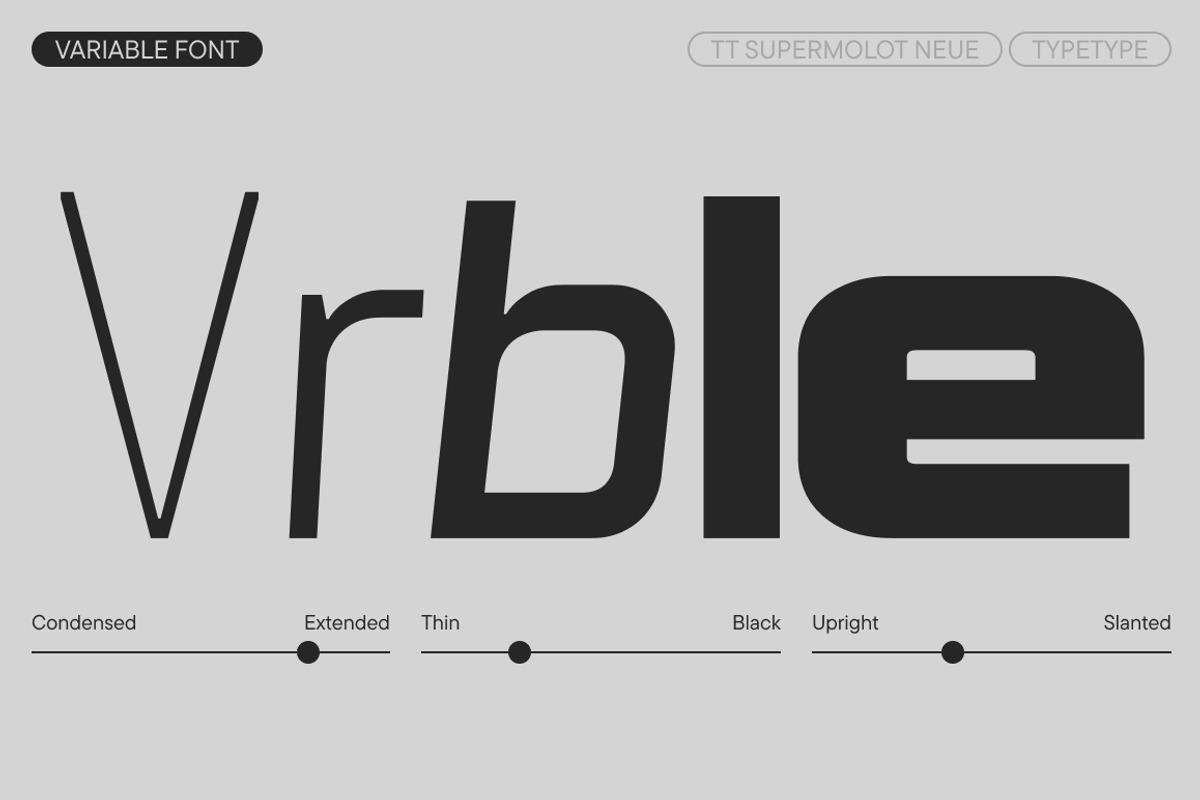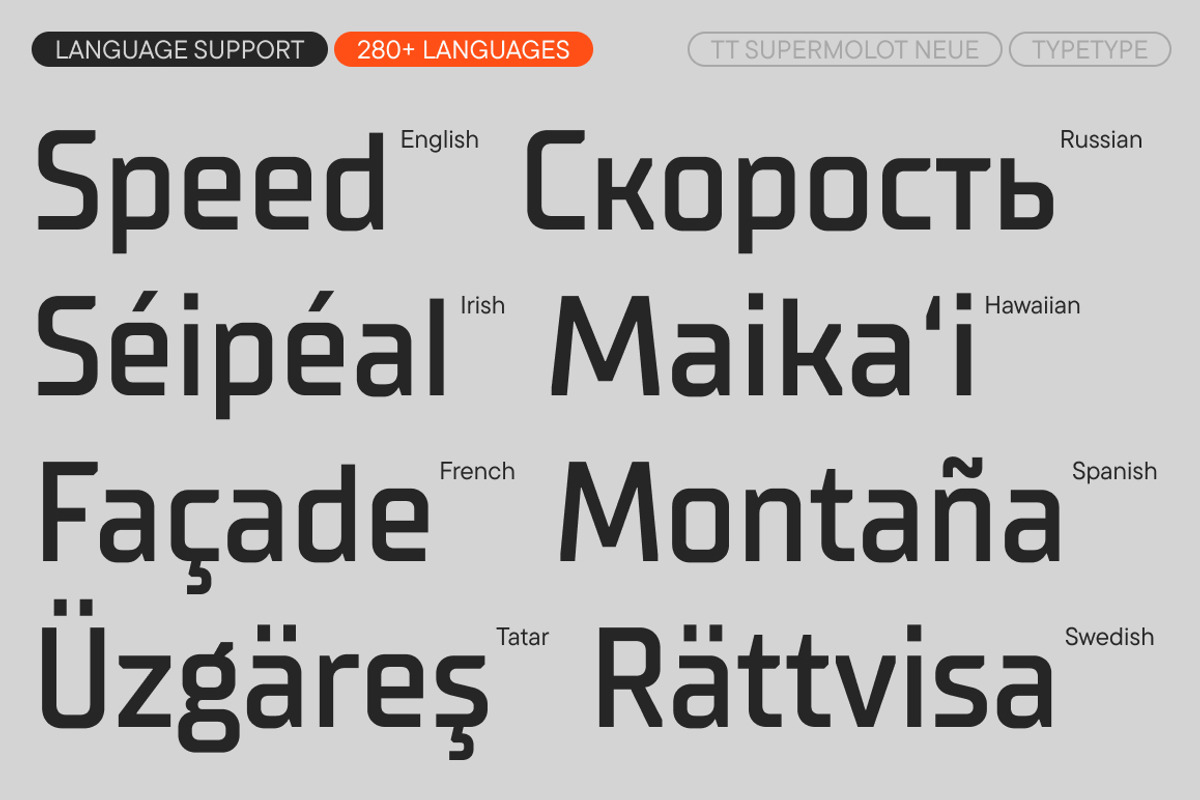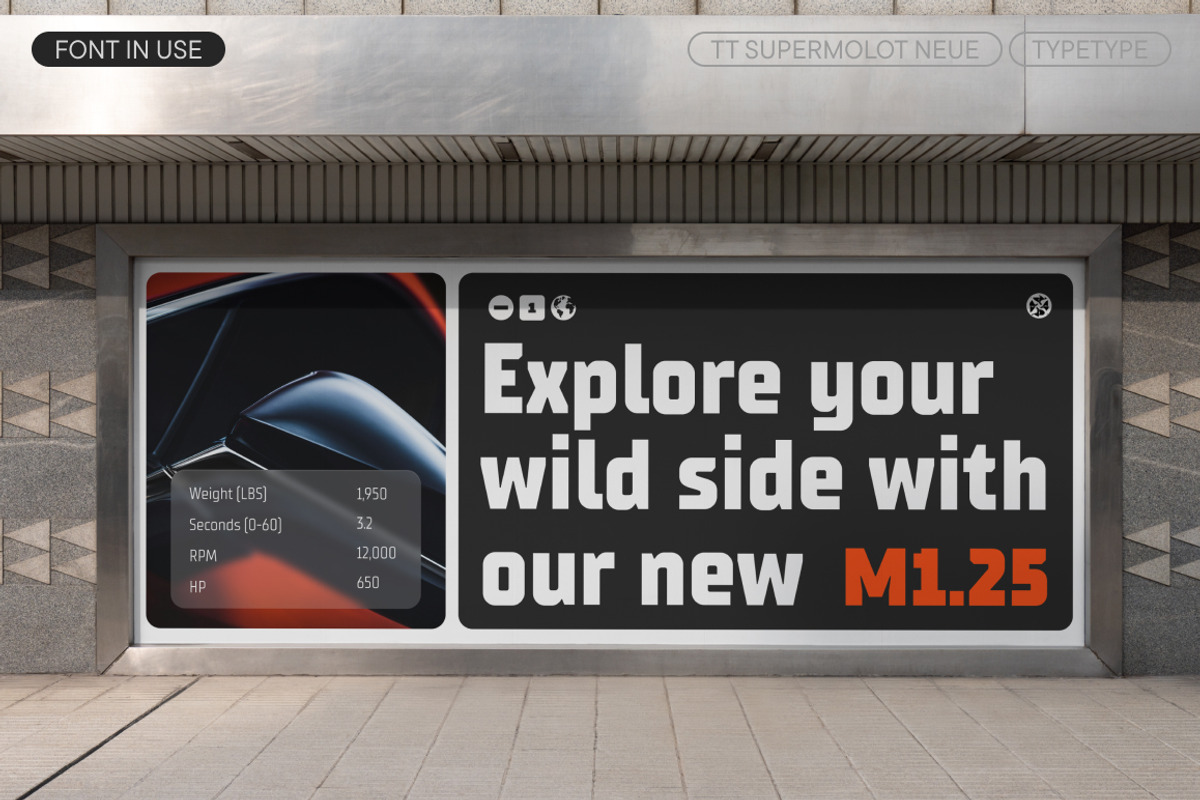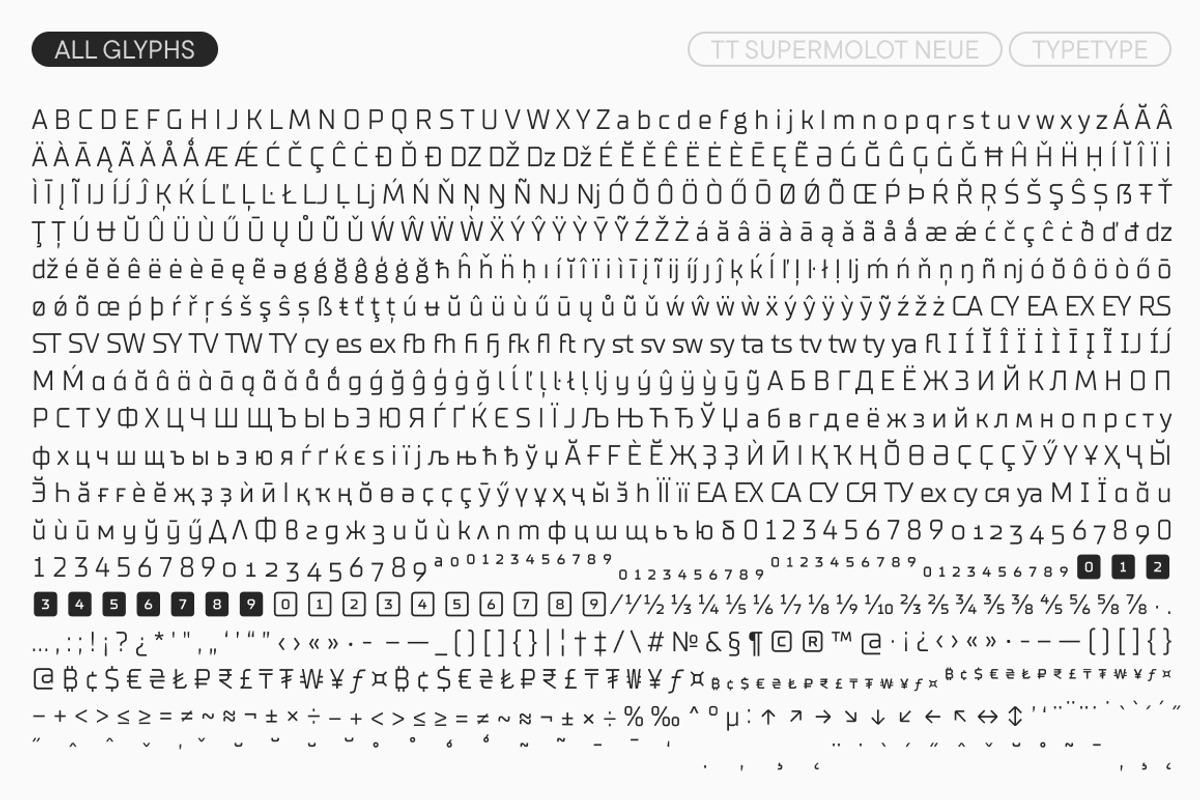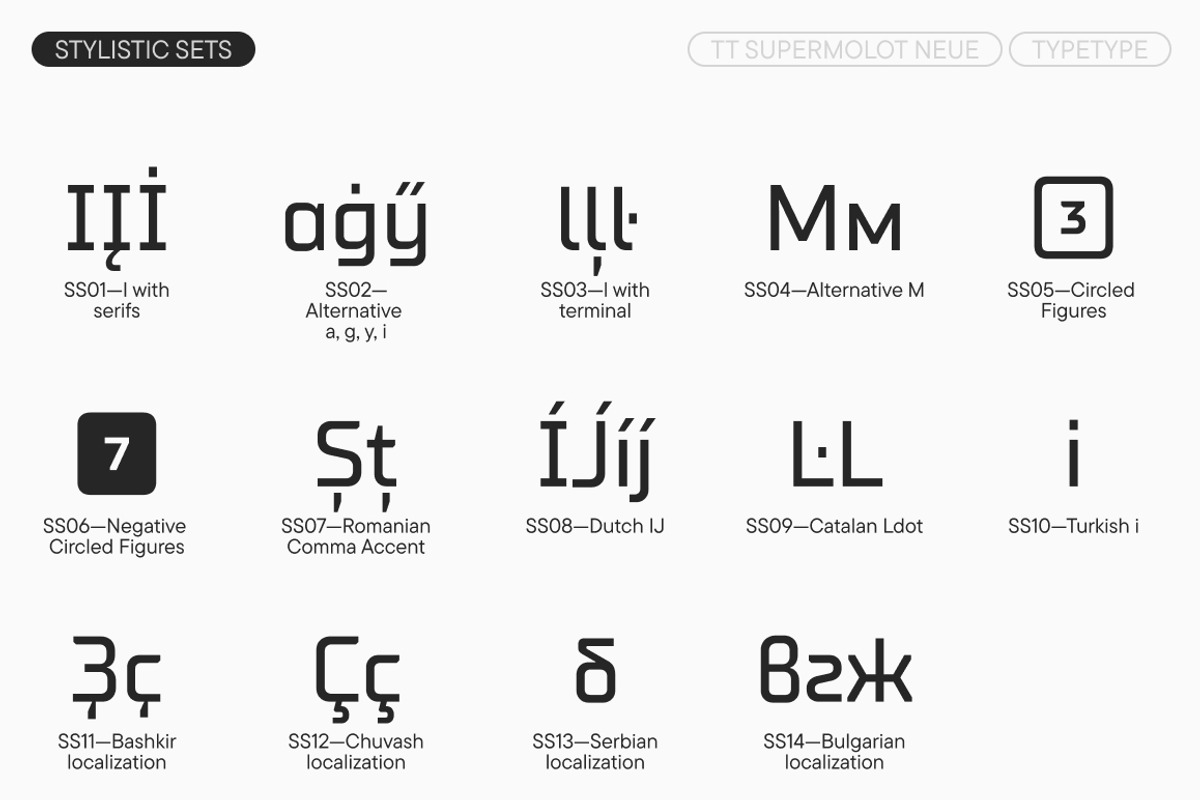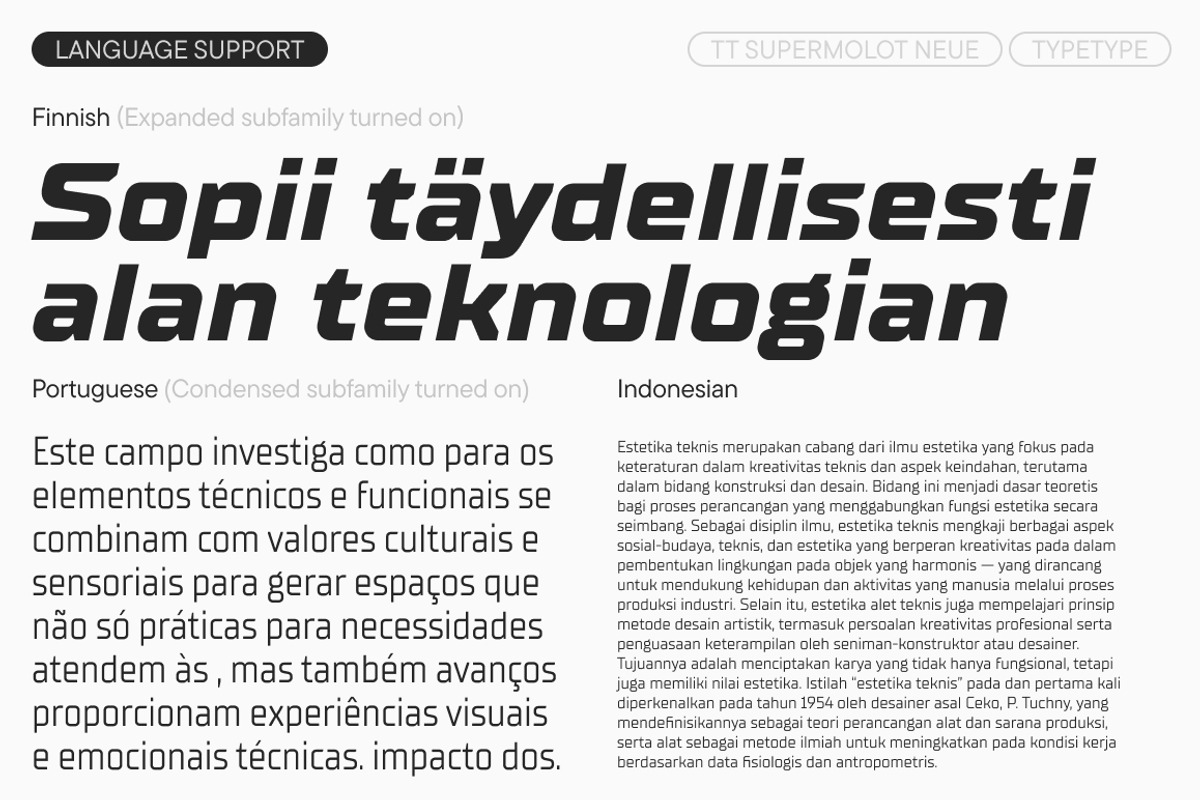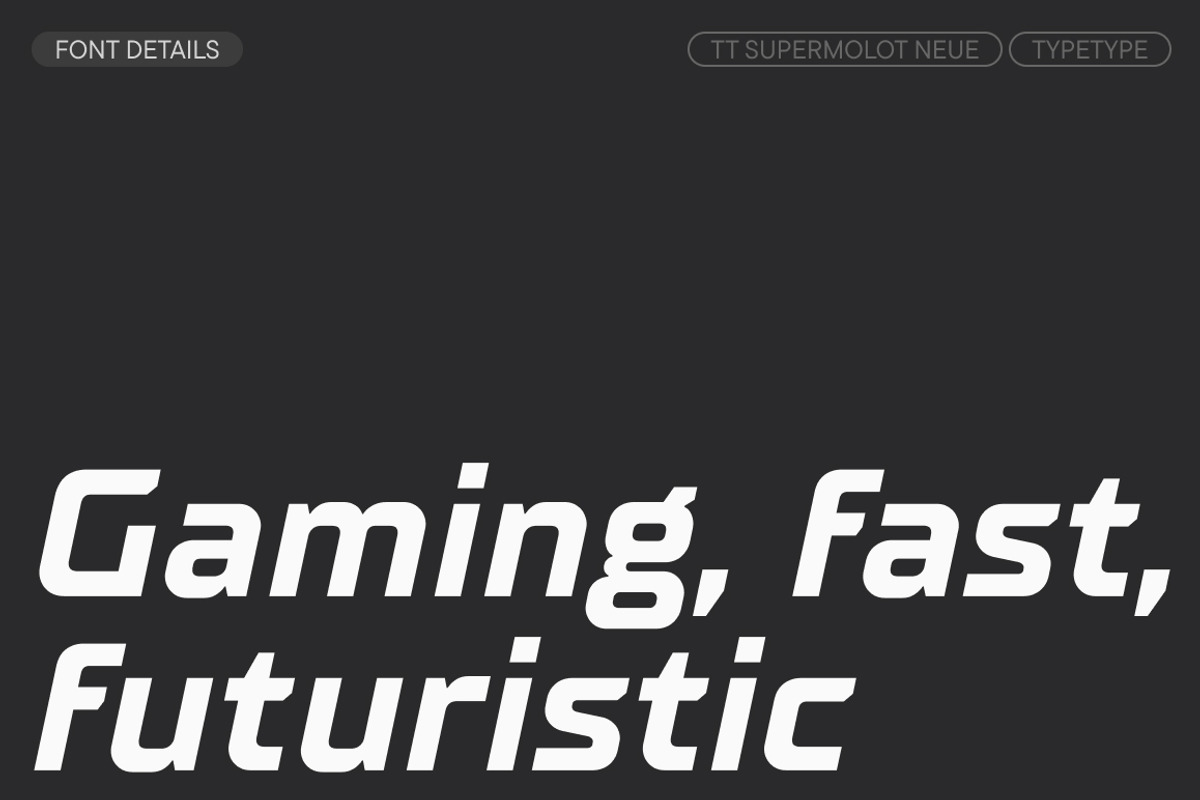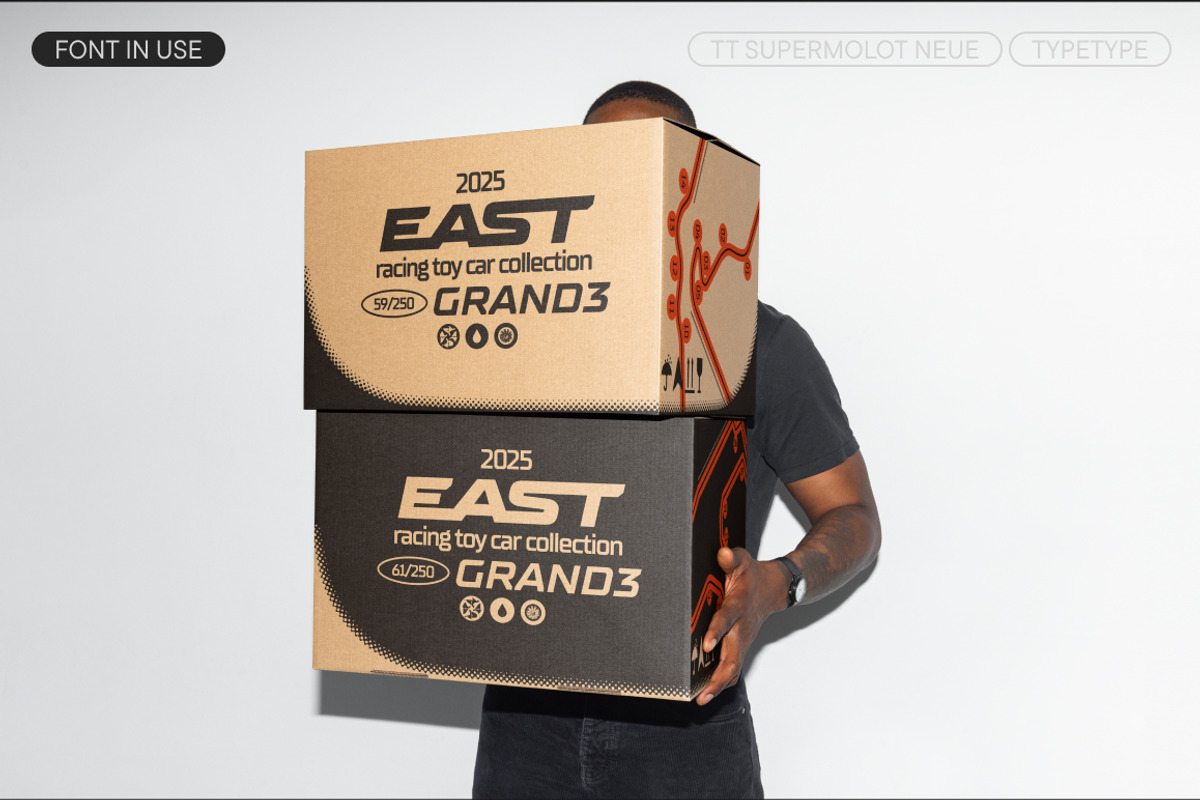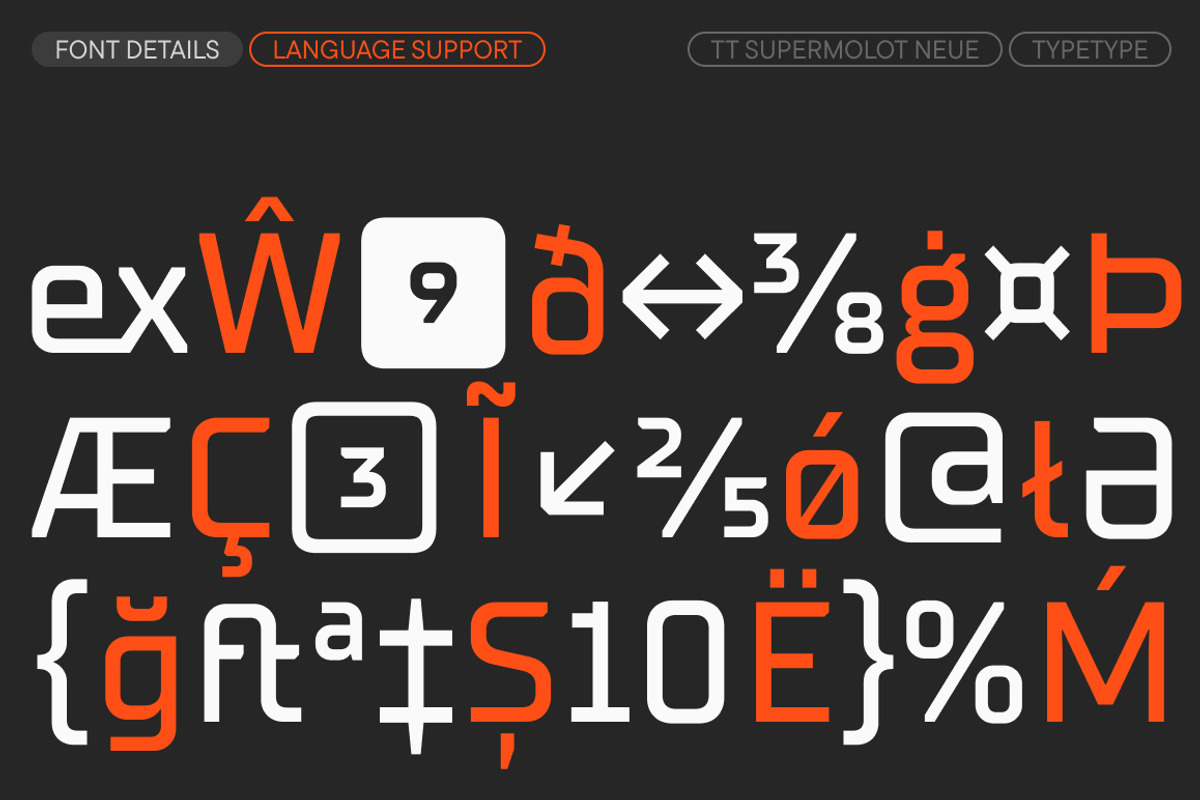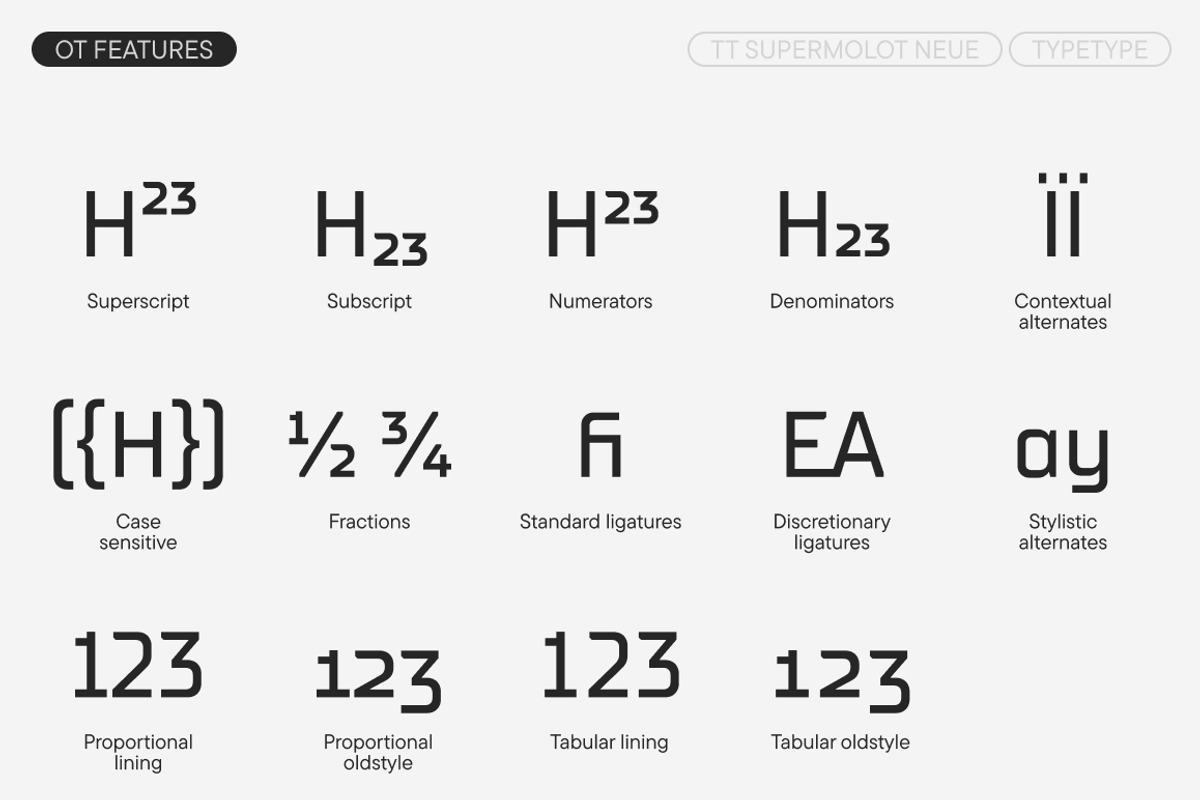
TT Supermolot Neue Basic
TT Supermolot Neue Basic is a Basic version of our TT Supermolot Neue font family https://creativemarket.com/typetype/3344352-TT-Supermolot-Neue
The updated TT Supermolot Neue includes:
- 73 font styles: 36 roman, 36 italic, and one variable font;
- 943 characters in each font style;
- 32 OpenType features, counting in stylistic alternates for particular characters;
- 230+ languages support.
Introducing the updated TT Supermolot Neue! The typeface now boasts a larger character set, more supported languages, and new OpenType features that enhance its functionality and versatility.
TT Supermolot Neue is an advanced, modular sans serif. It’s a highly powerful and dynamic font with a futuristic feel. Its squared forms give the typeface a robust appearance. However, the chopped angles of particular elements make it look flexible and ergonomic.
The font features various distinctive details: beautiful junctions, peculiar “steps,” and angles in squared ovals. TT Supermolot Neue shows a different side in each font style: the Light style, for example, is soft and calm, and the Bold style is solid and serious.
The updated version contains more Cyrillic-based languages and an expanded set of Latin-based ones. We have also added a multitude of special symbols, so the font family now boasts much stronger functionality. For instance, we added fractures, numerators, denominators, arrows, and ligatures.
TT Supermolot Neue reveals its full potential in medium and large point sizes while staying readable in small point sizes as well. This typeface was designed specifically for video game interfaces. However, its application range goes far beyond just video games. TT Supermolot Neue will be an equally perfect match for technology, the automotive industry, architecture, and design projects. It can also become part of the street art museum’s identity or a sports apparel brand—it all depends on your imagination.
***Full list of OpenType features: aalt, ccmp, ordn, locl, case, frac, sinf, subs, sups, numr, dnom, tnum, onum, lnum, pnum, ss01 (Latin and Cyrillic I with serifs), ss02 (Alt. Latin a, g, y and Cyrillic a, i, y), ss03 (l with terminal), ss04 (Alternative M), ss05 (Circled Figures), ss06 (Negative Circled Figures), ss07 (Romanian Comma Accent), ss08 (Dutch IJ), ss09 (Catalan Ldot), ss10 (Turkish i), ss11 (Bashkir localization), ss12 (Chuvash localization), ss13 (Serbian localization), ss14 (Bulgarian localization), dlig, liga, calt